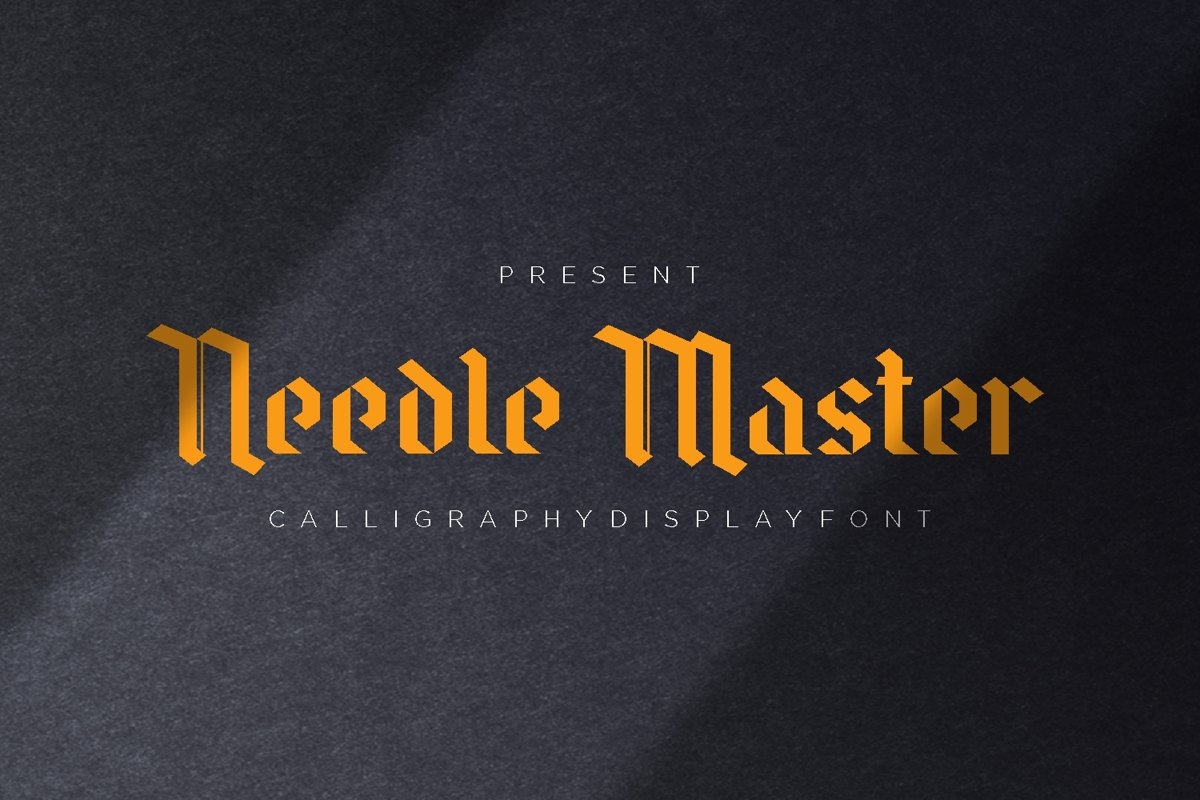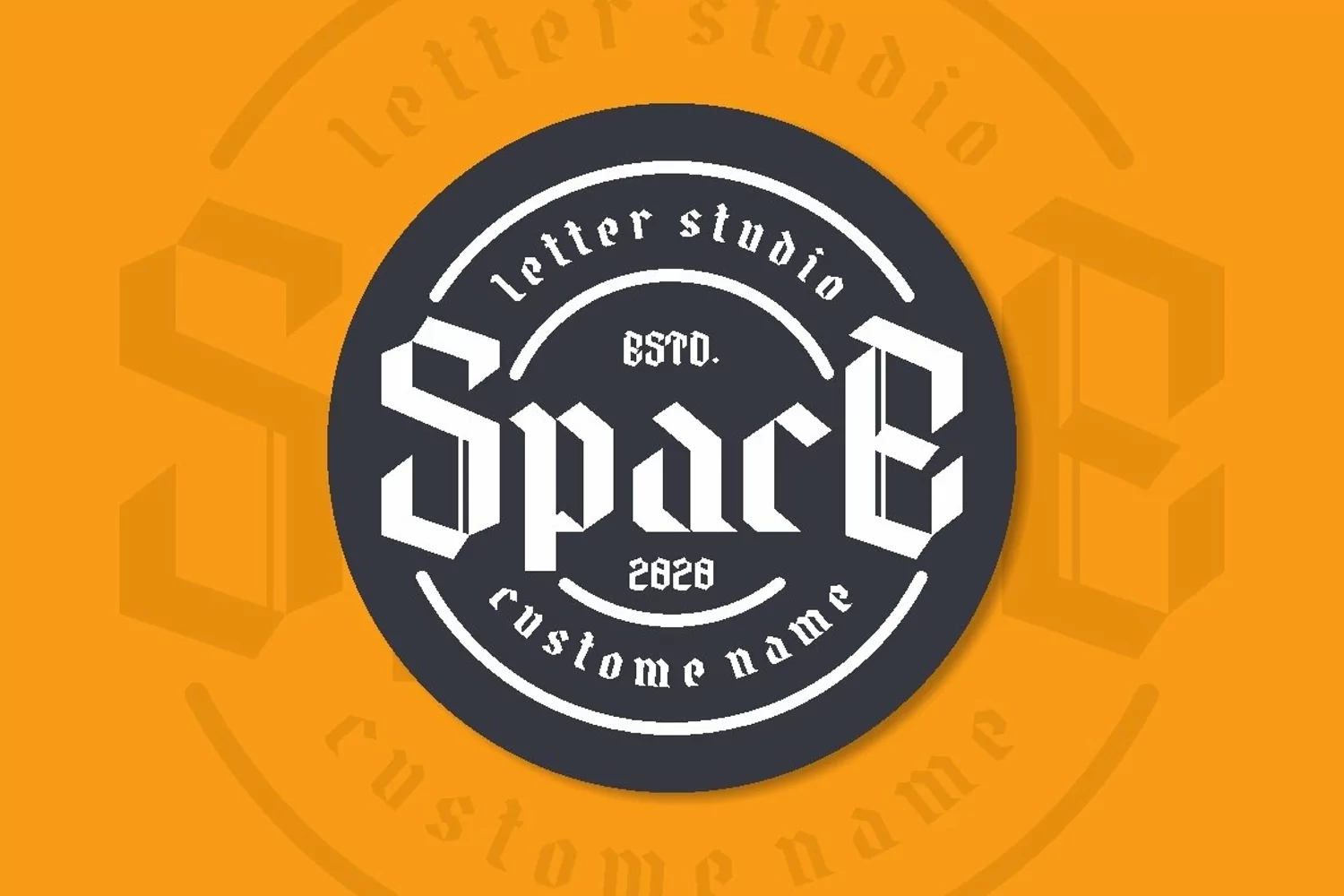
Needle Master is a powerful sans serif display typeface come with masculine themes. It matches applies in some designs such as the logotype, brand, packaging, quotes, music poster, t-shirt, cover book and more custom design. The features uppercase, lowercase, numeral, punctuation & symbol, multilingual support.
Needle Master